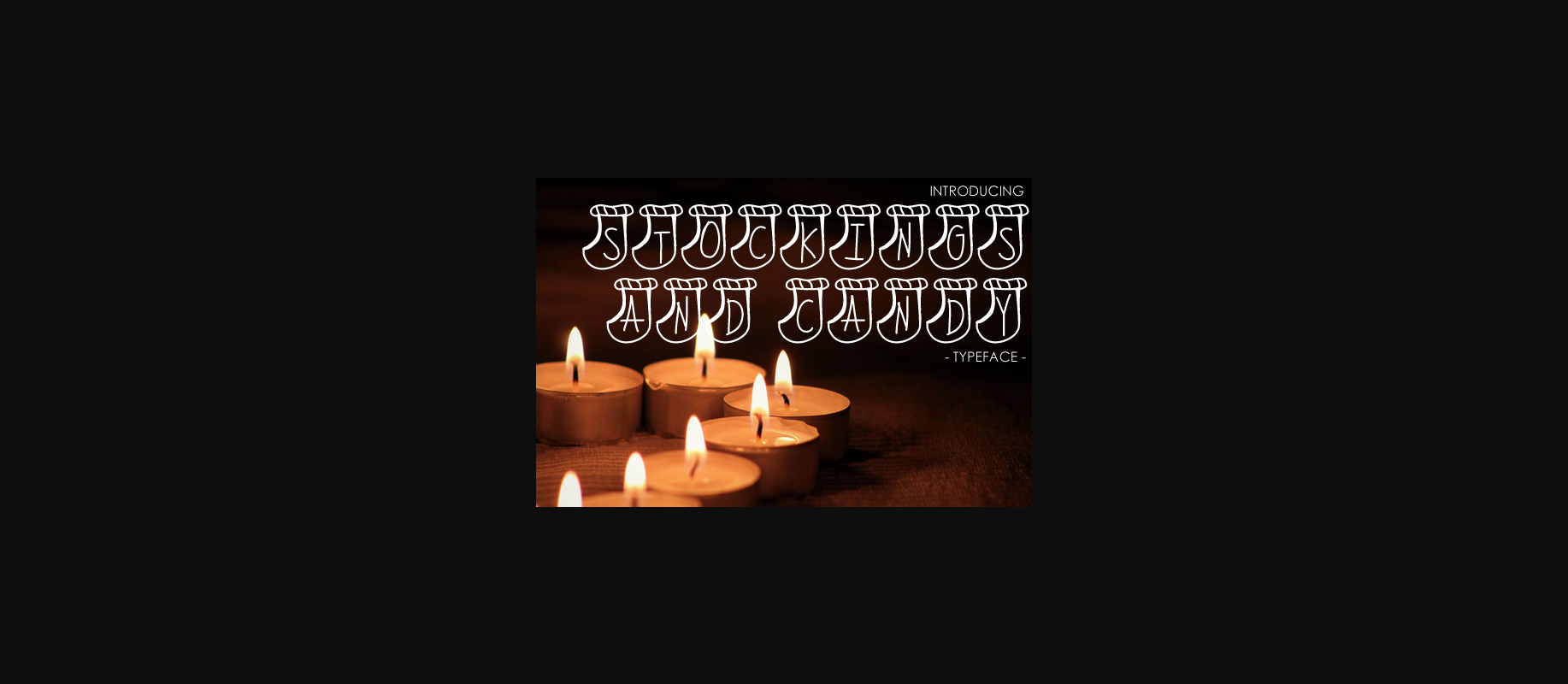
Stockings and Candy Font
About Stockings and Candy Font
Stockings and Candy is a monogram font, perfect for Christmas oriented designs! Each character comes in a decorative stocking, making it easy to incorporate fun into your projects.